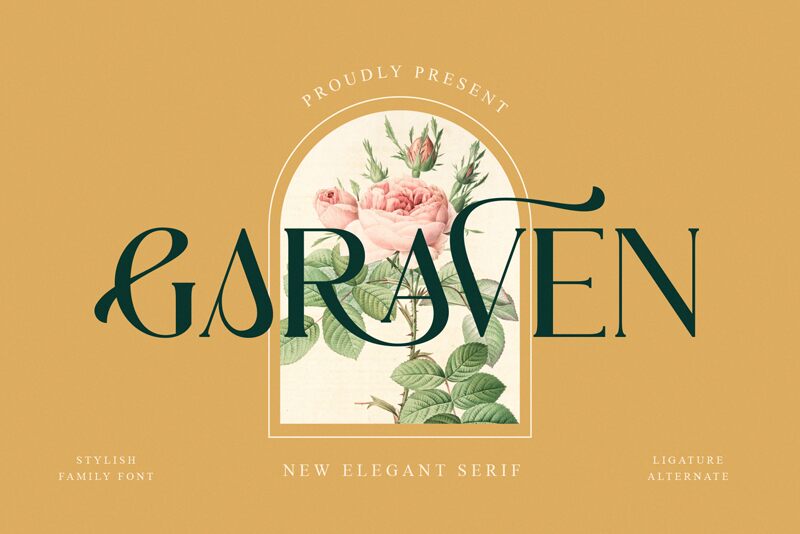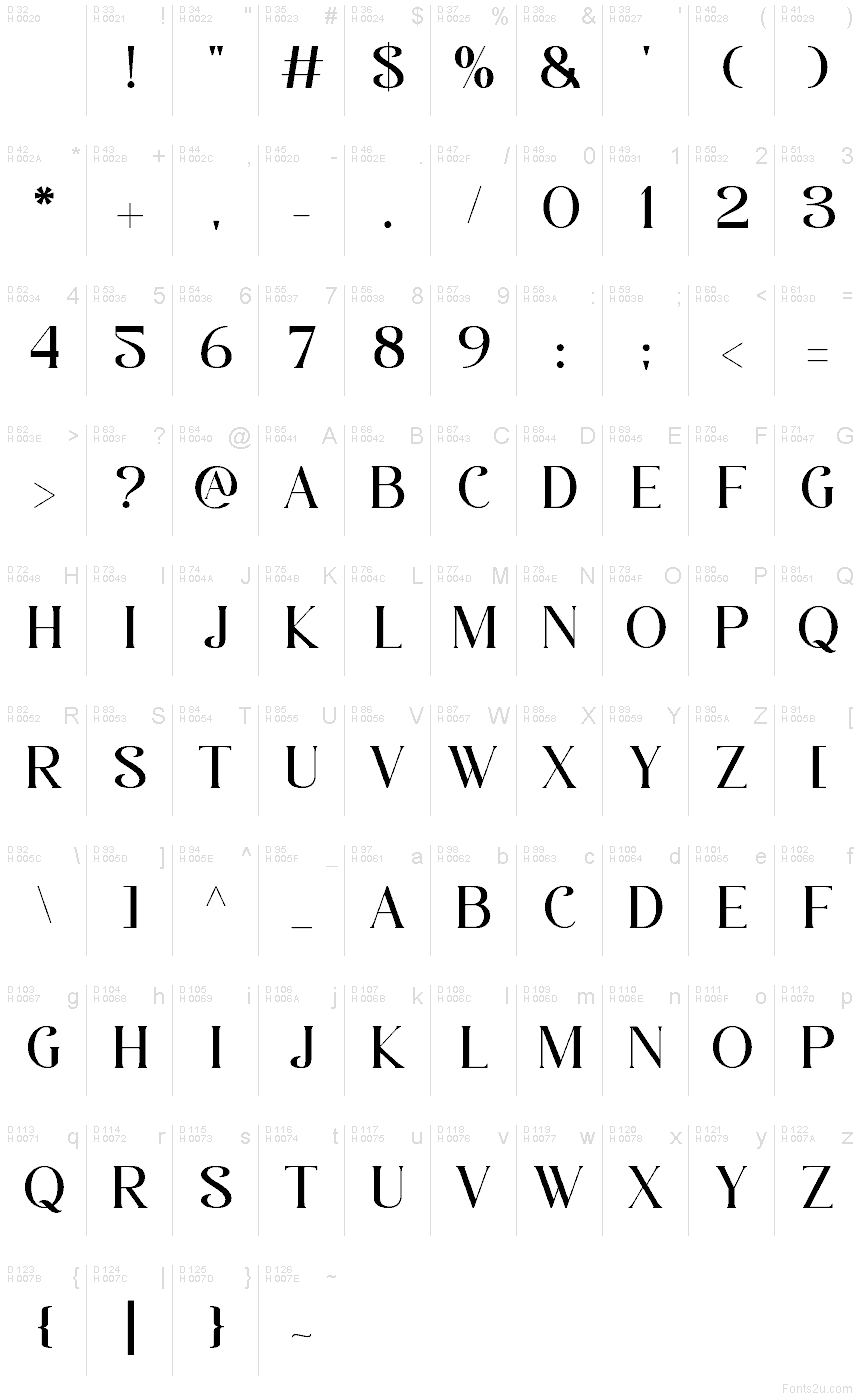
GARAVEN
Garaven font by Muflieart is a free serif typeface that brings couture poise with a touch of bite. Tall, elegant shapes snap to attention with crisp, knife-edge serifs and dramatic thick–thin rhythm, giving headlines a glossy-magazine sheen without feeling cold. It reads as luxurious but not fussy, thanks to steady spacing and confident verticals.
Using Garaven, your fashion branding, editorial covers, beauty packaging, posters, book jackets, and upscale invitations gain instant polish. The letters stack beautifully in all caps and hold tension at large sizes; add a hint of tracking to let those sharp details breathe. This free font pairs naturally with a quiet grotesk sans to handle captions and body copy.